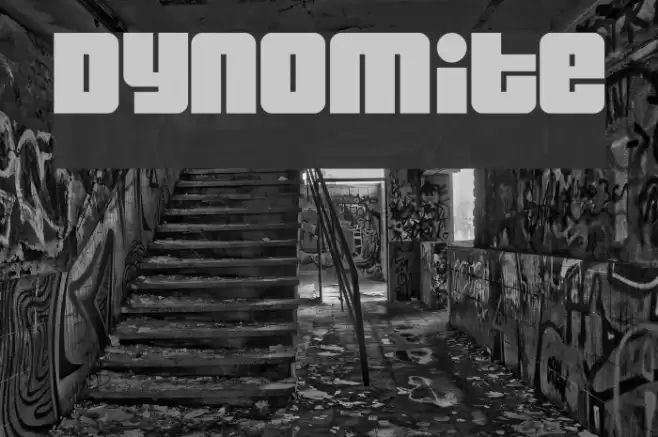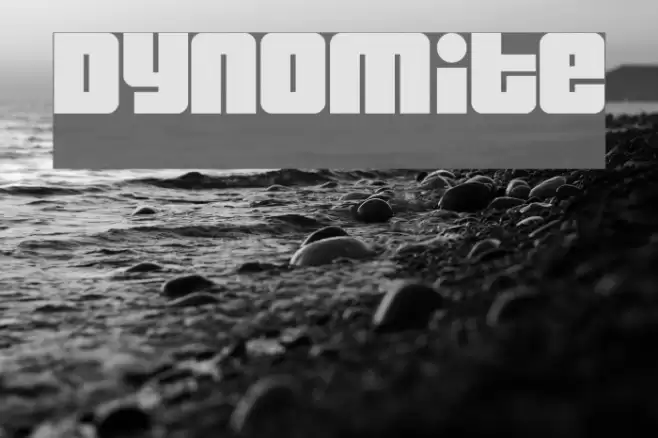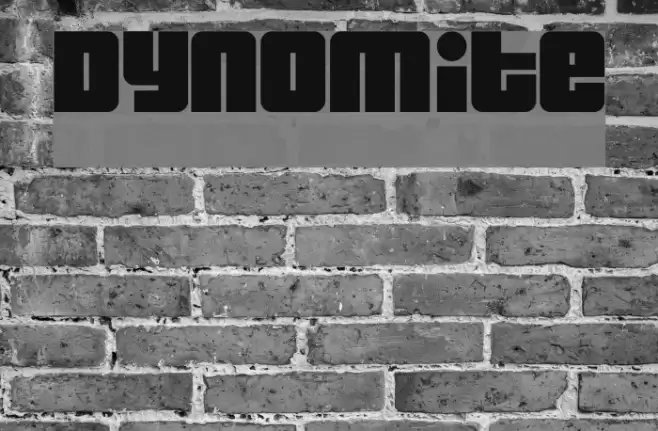
Dynomite Font
Dynomite Description
This font features a bold and geometric style with a strong presence. The characters are blocky and robust, with a uniform thickness that gives them a powerful and impactful look. The uppercase and lowercase letters maintain a consistent width, creating a cohesive and structured appearance. The numbers and special characters follow the same design principles, ensuring a harmonious overall look. This font is ideal for projects that require a bold statement and a modern, edgy feel.
A bold, geometric font with a strong, impactful presence from Decorative fonts.
- Proposed Projects: Ideal for posters, headlines, branding, and any design that requires a bold statement.